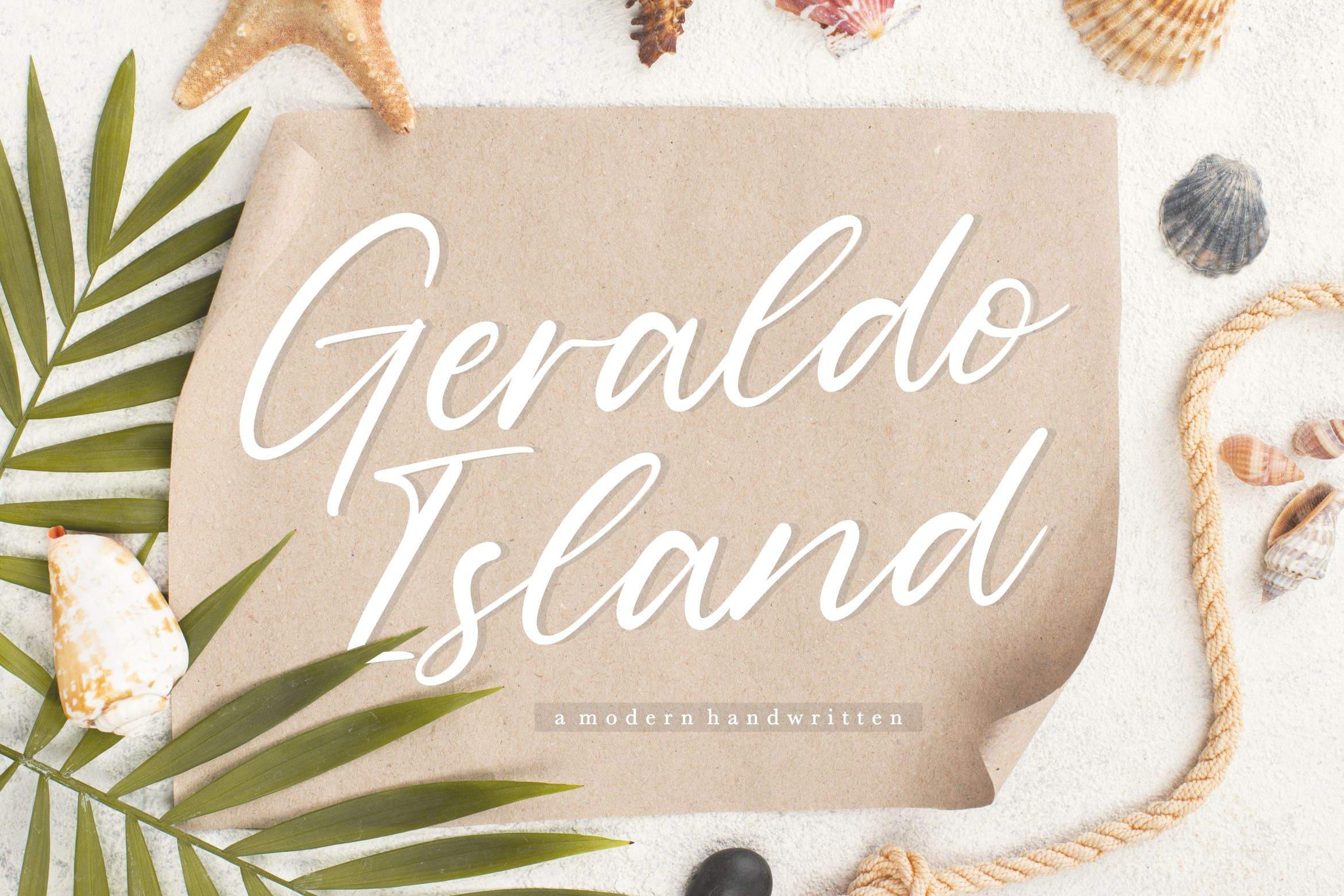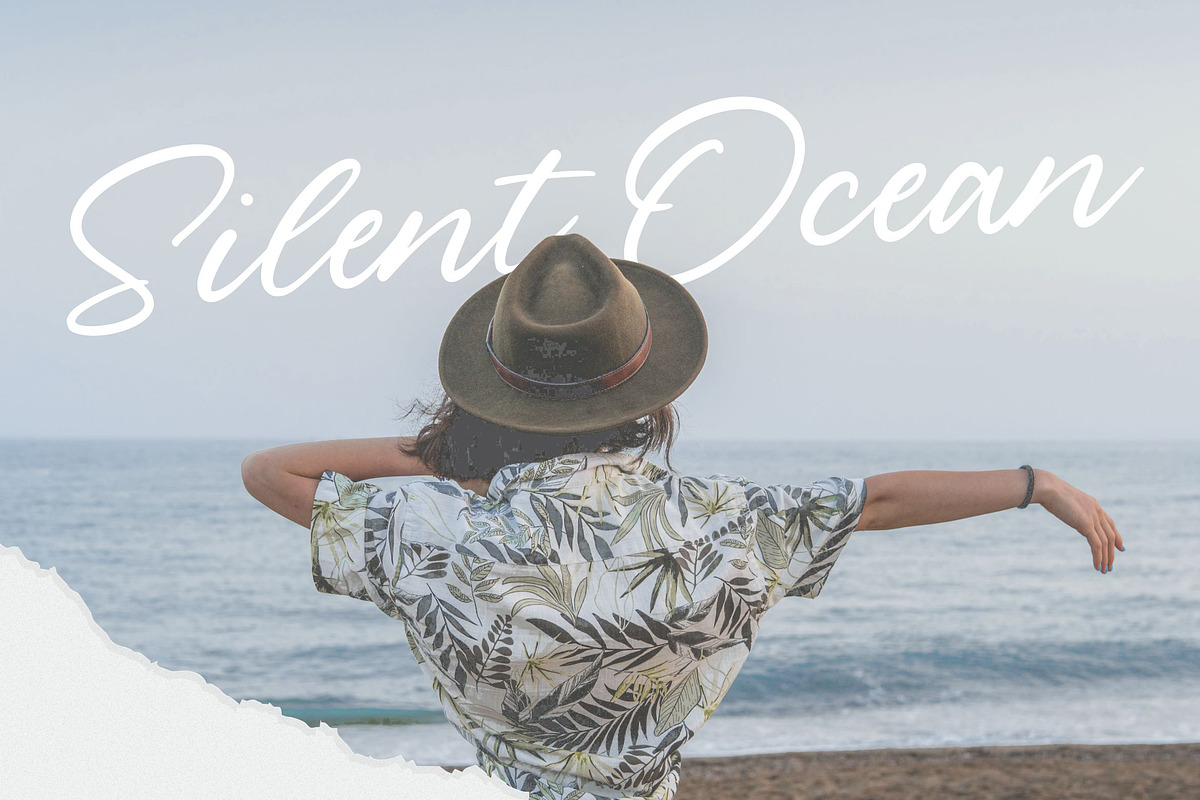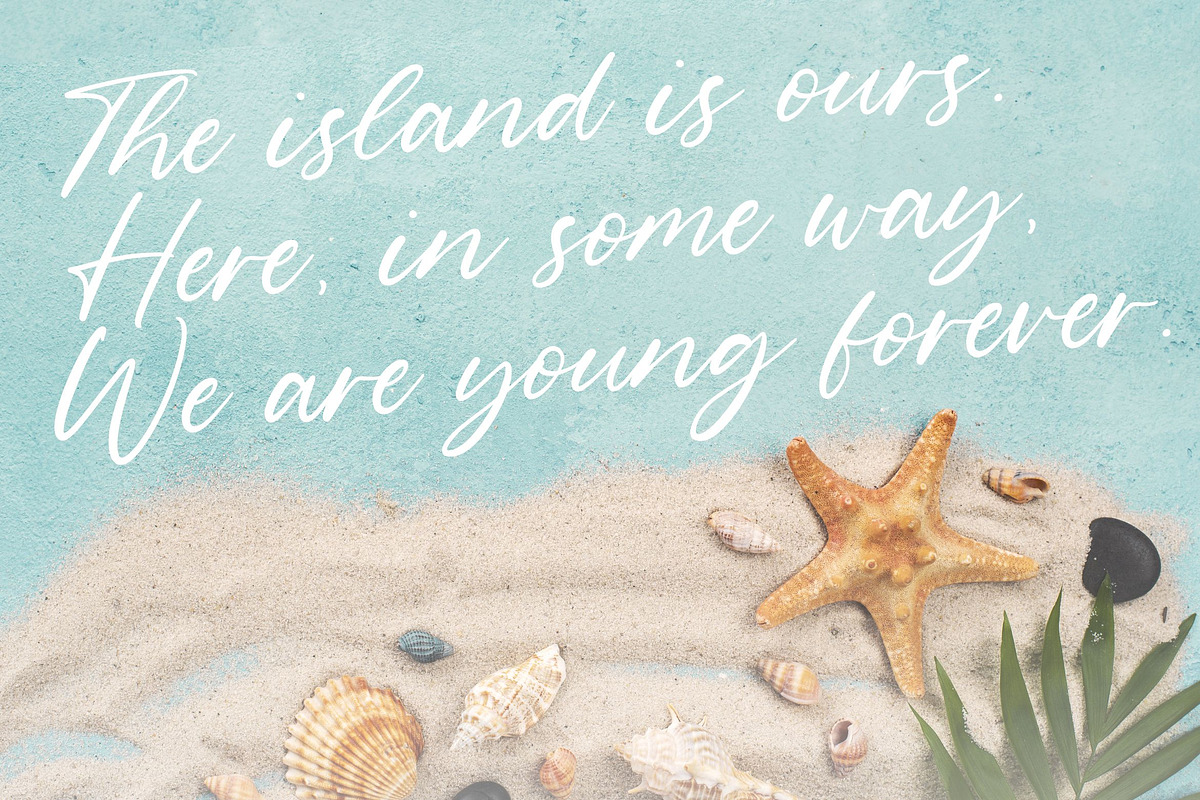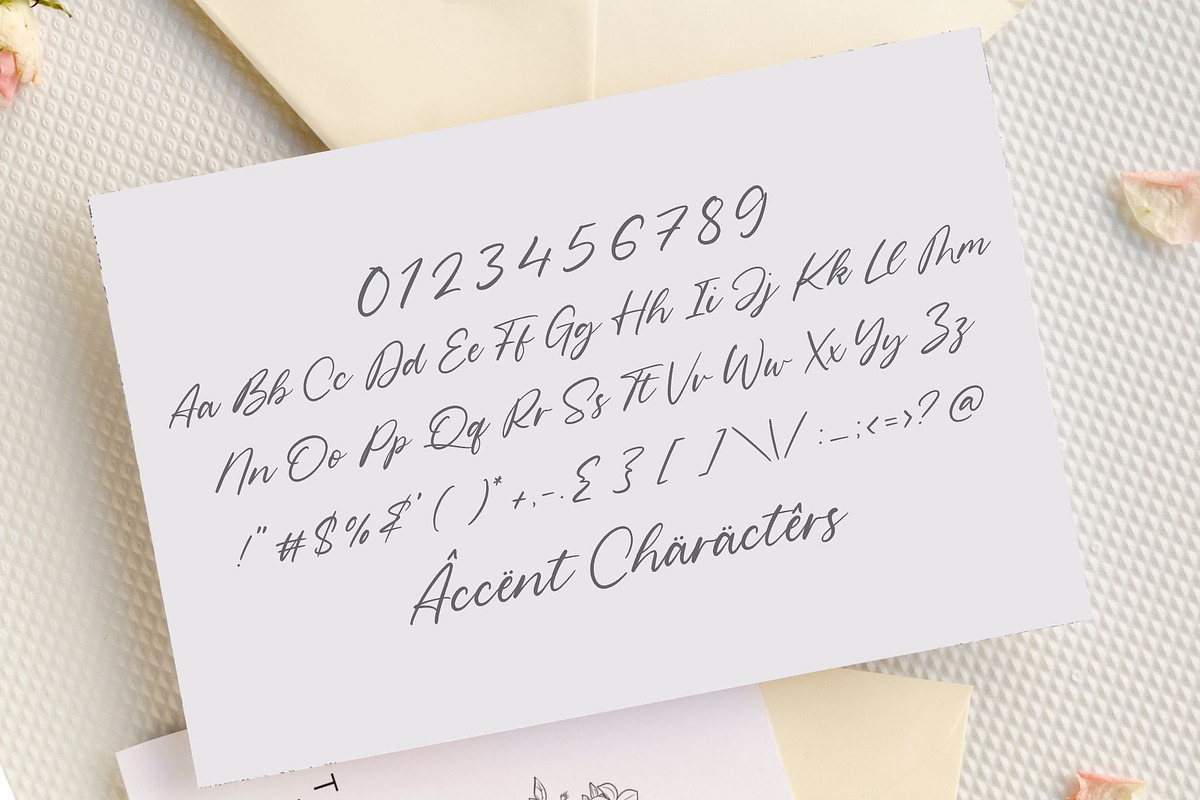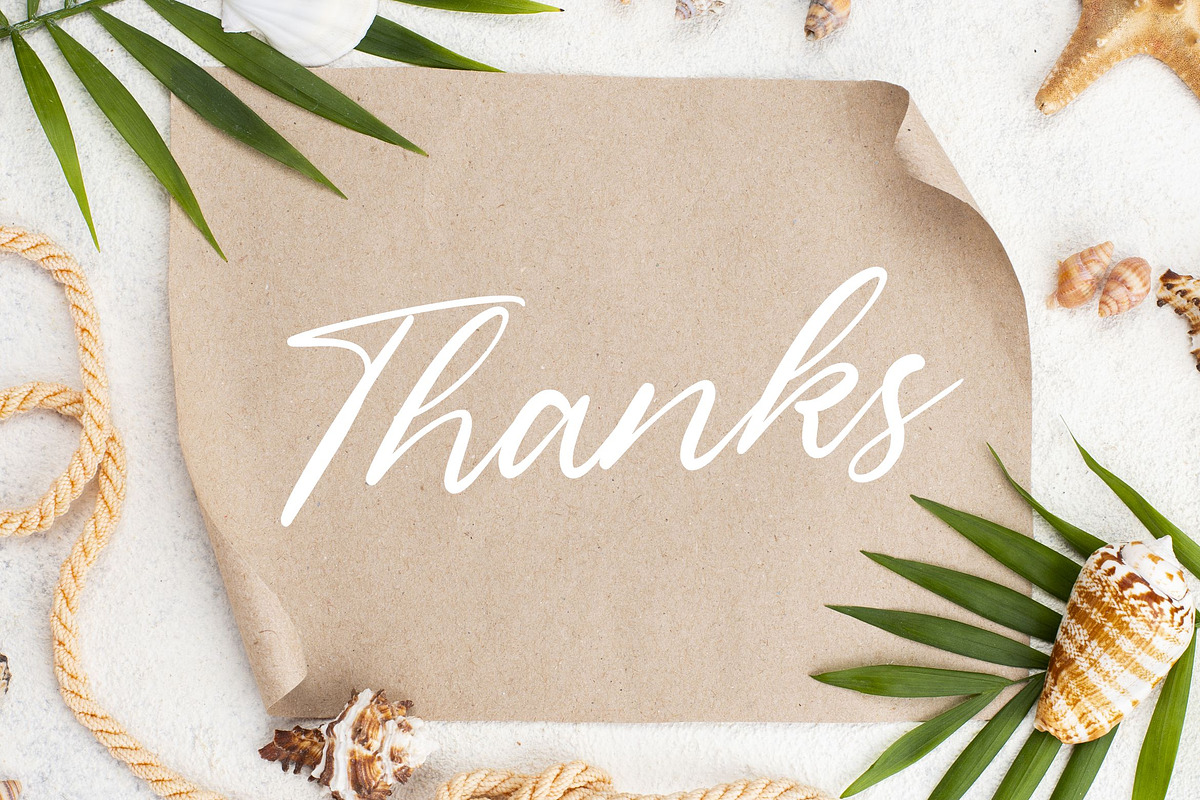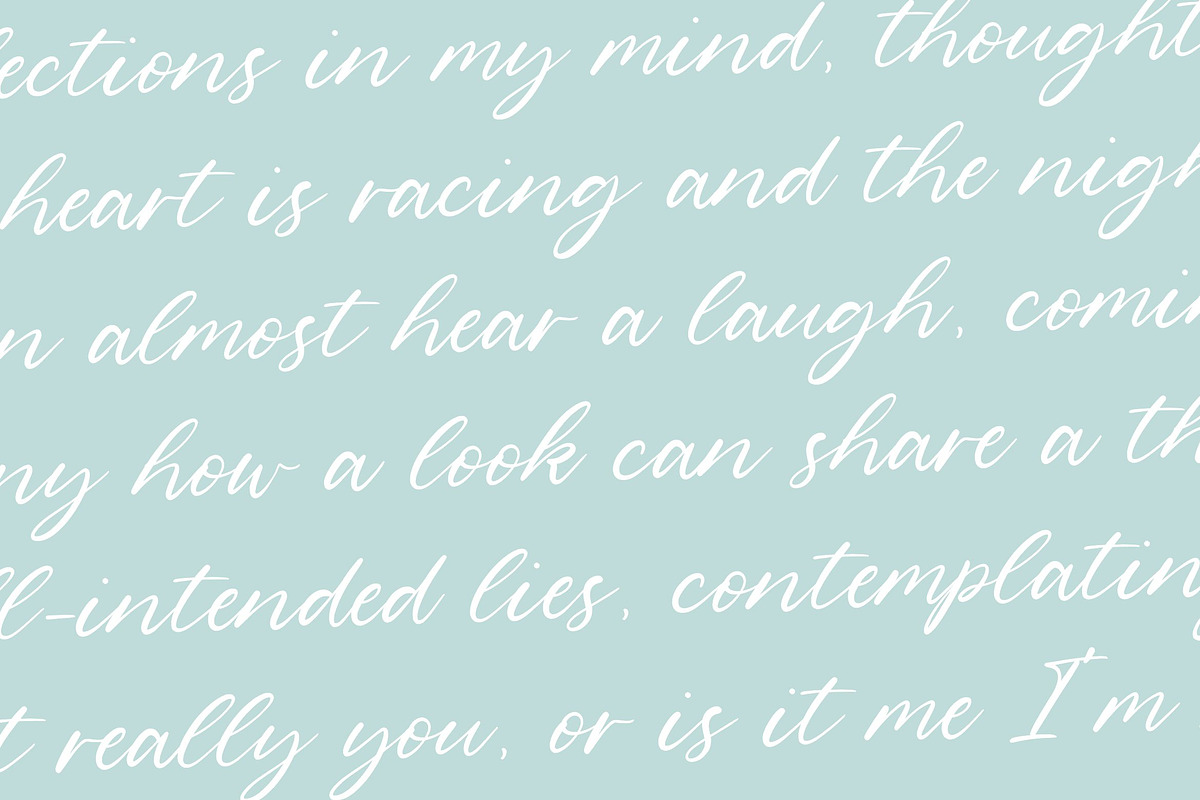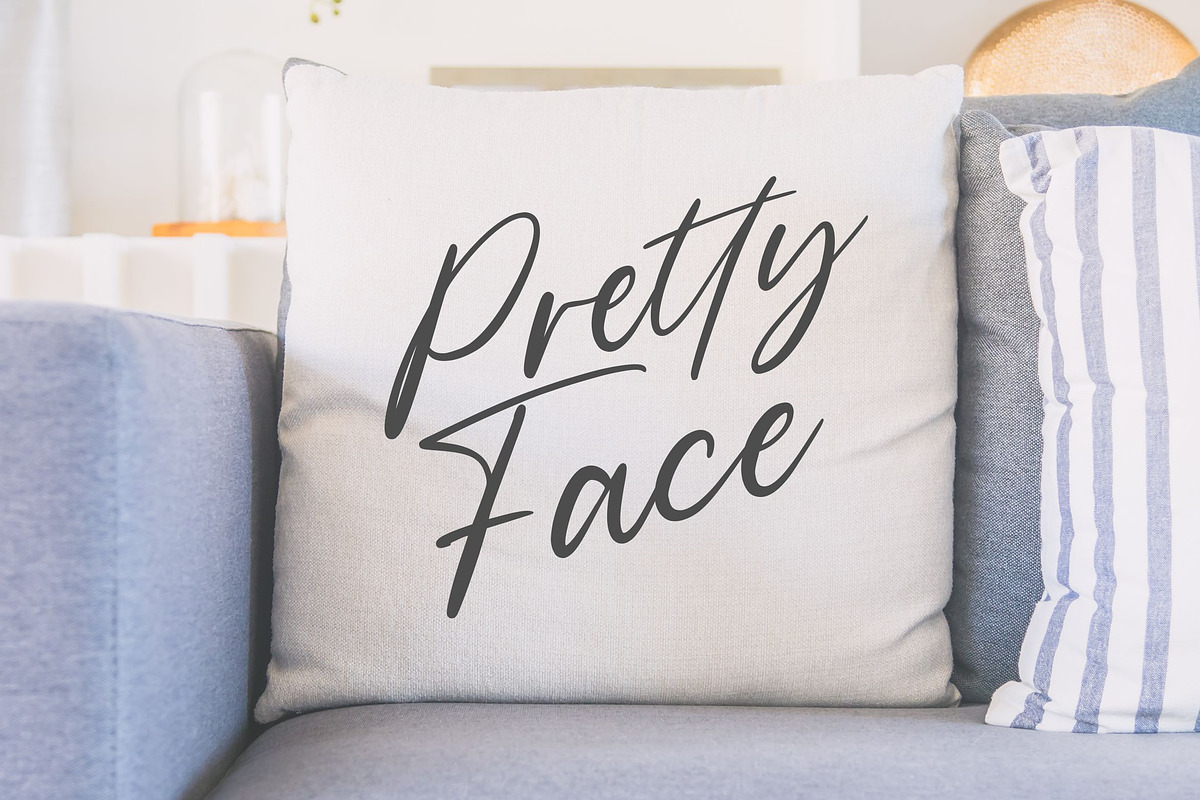
Geraldo Island - Handwritten Font
Proudly Present, Geraldo Island Font
Geraldo Island is an incredibly distinct, delicate and timeless handwritten font. It looks stunning on wedding invitations, thank you cards, quotes, greeting cards, logos, business cards and every other design which needs a handwritten touch.